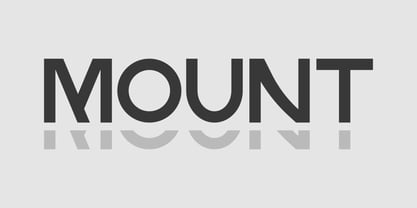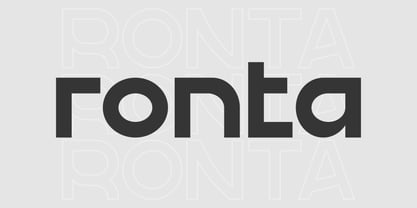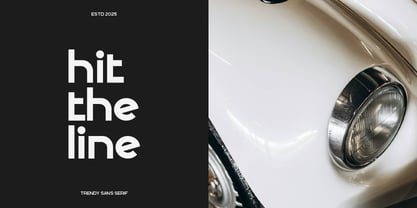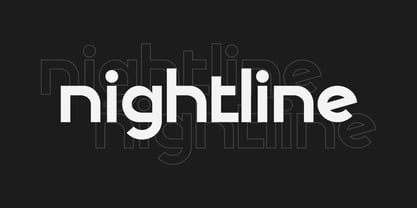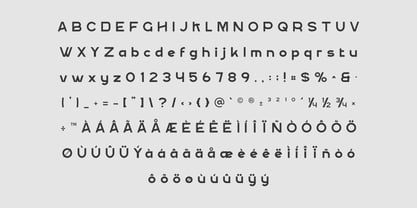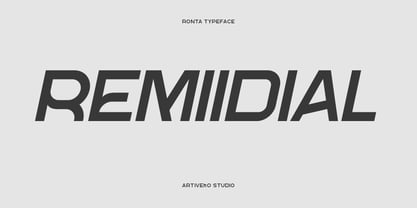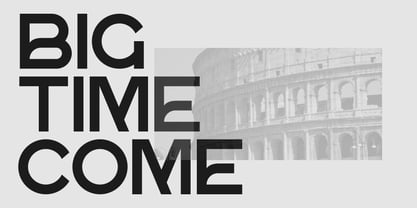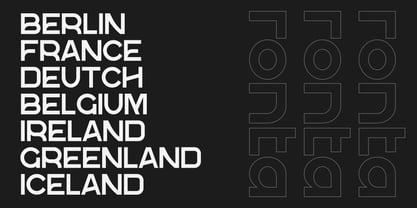
Ronta
Die Schriftfamilie Ronta wurde von Iwan Alwan entworfen und von Artiveko veröffentlicht. Ronta enthält 2 Stile und Familienpaketoptionen. Mehr über diese Familie
Ronta is a contemporary sans serif font designed to bring originality and sophistication to your designs. Featuring clean geometry, subtle curves, and distinctive letterforms, Ronta strikes a balance between functionality and creative expression. It’s perfect for branding, logo design, packaging, editorial layouts, posters, and digital media projects that need a fresh and stylish look.
Its versatile structure ensures excellent readability while standing out with a unique, modern personality. Suitable for fashion, tech, lifestyle, and creative industries, Ronta adapts beautifully to both bold headlines and minimalistic body text.
The font includes uppercase and lowercase letters, numerals, punctuation, multilingual support, and stylistic alternates for added customization.
Elevate your visual identity with Ronta — the creative sans serif that blends clean aesthetics with a distinctive, contemporary twist.